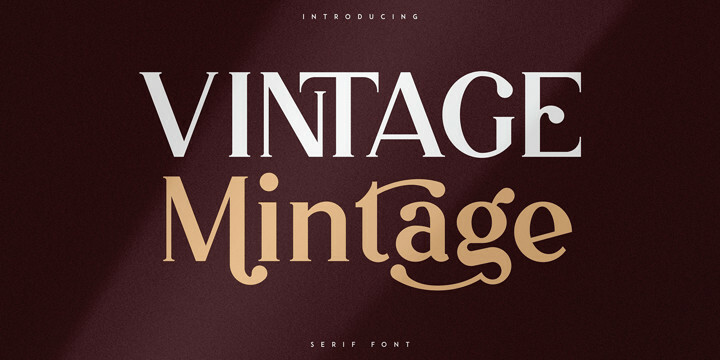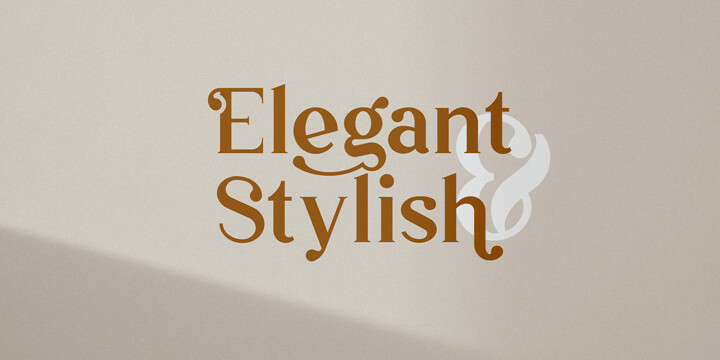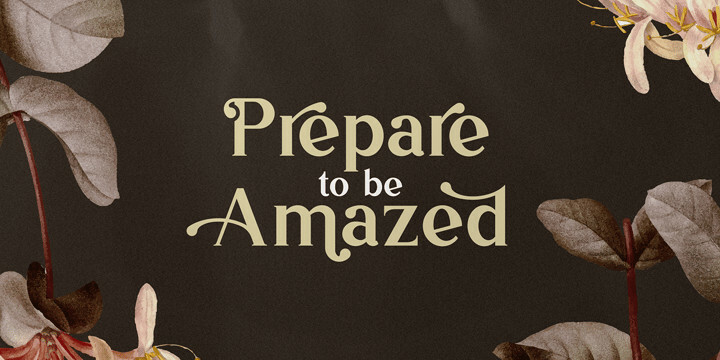
Vintage Mintage Font
Vintage Mintage FontIntroducing Vintage Mintage retro font
Vintage Mintage is fat, rounded font. Retro serif font loaded with alternate and ligature glyphs to make you typography truly unique!